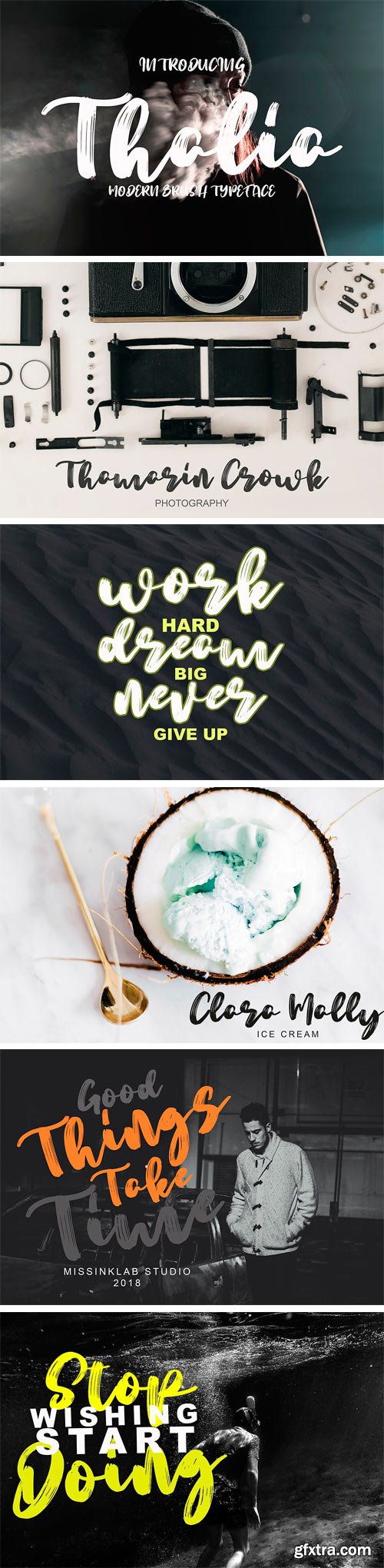
Thalia modern display font with modern style, this font will perfect for many different project ex: quotes, logo, blog header, poster, wedding, banding, fashion, apparel, letter, invitation, stationery, etc...